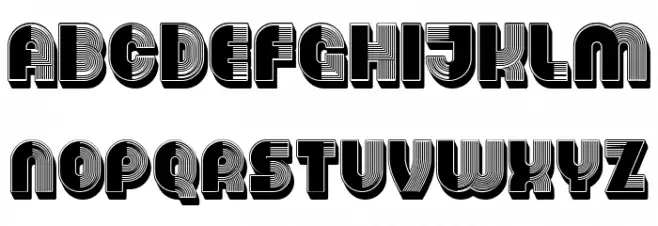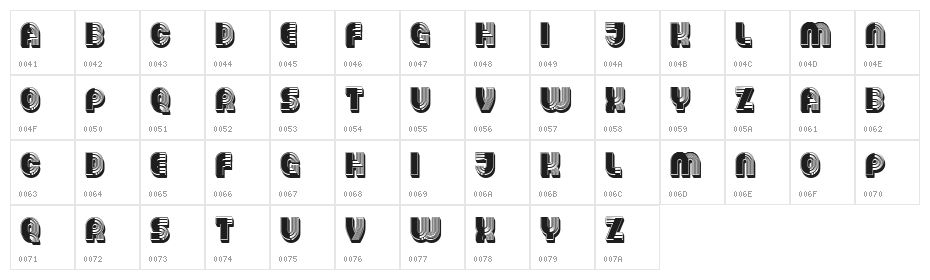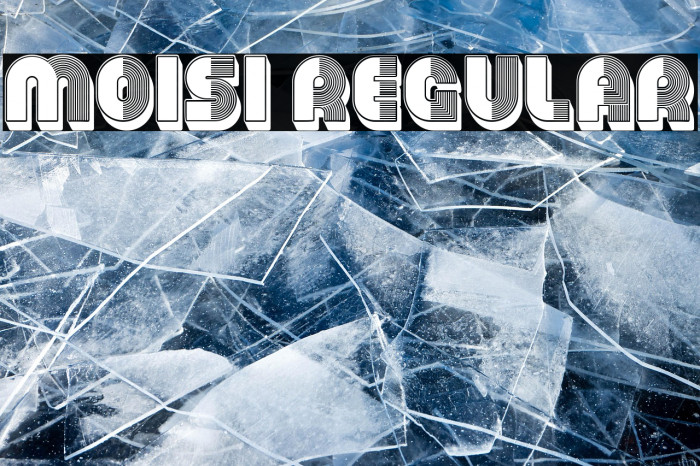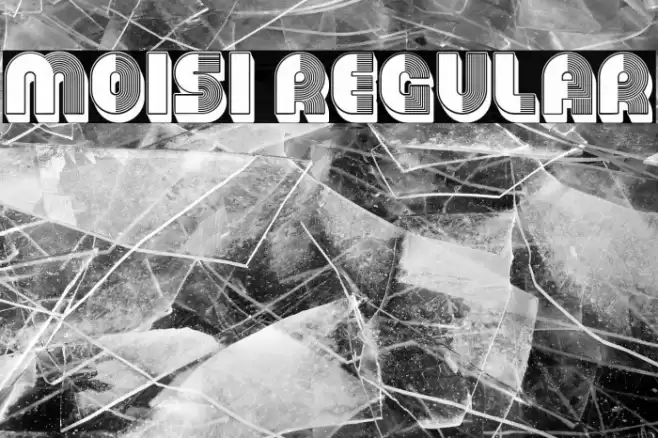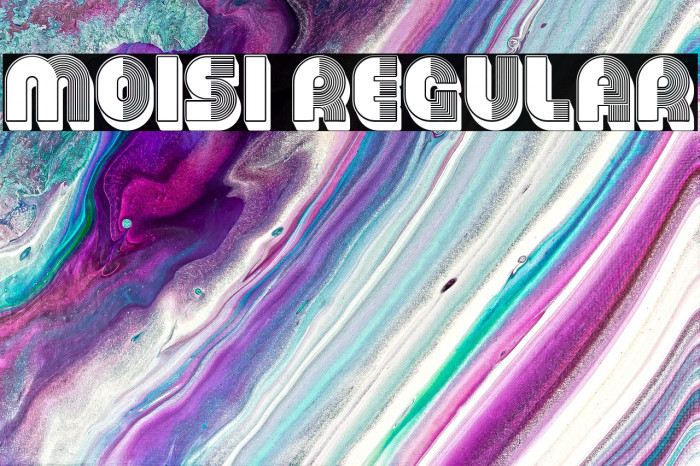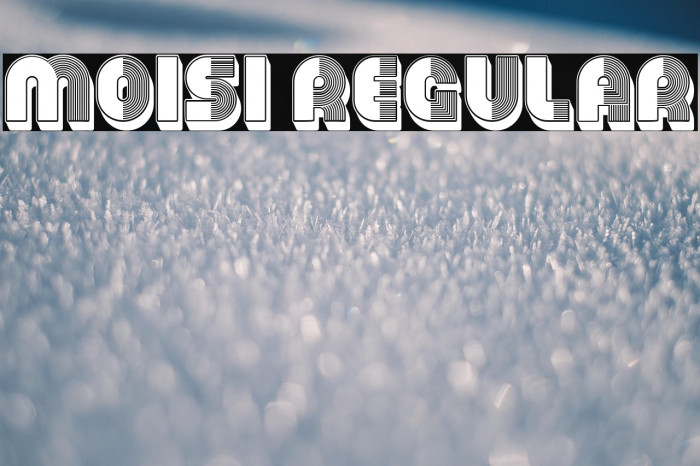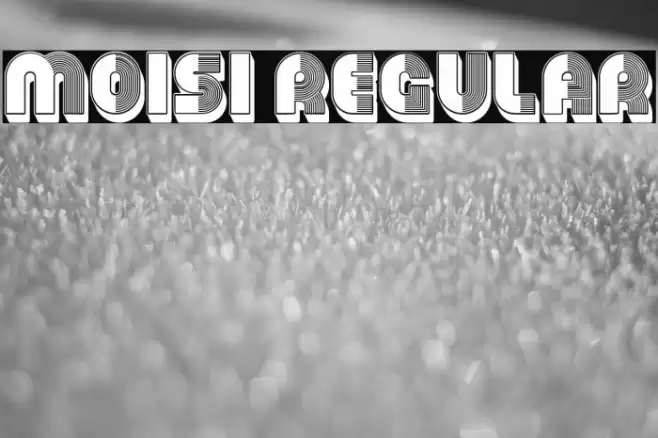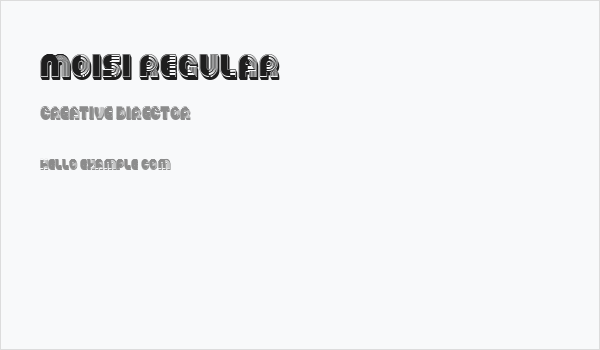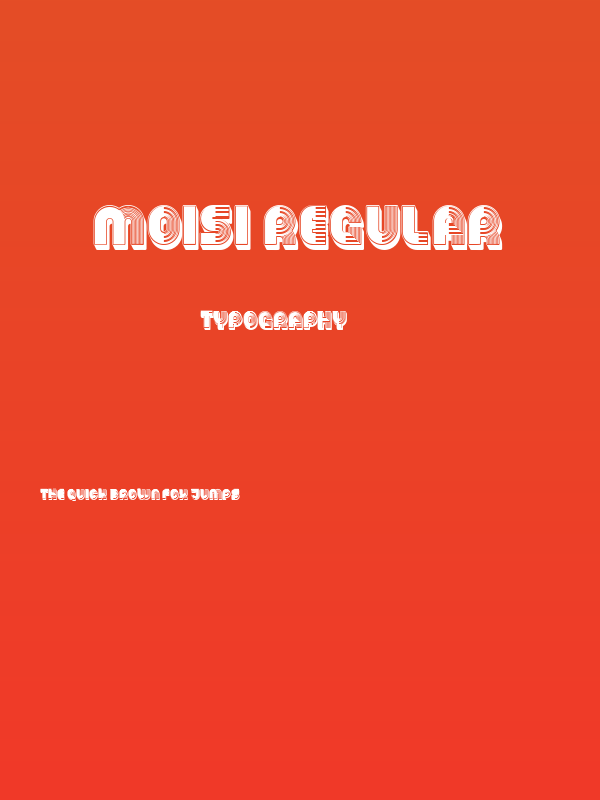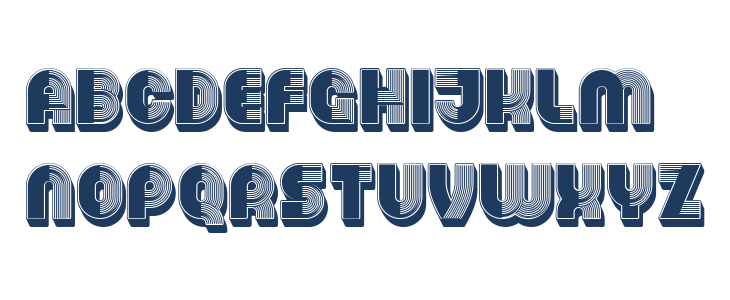
Moisi Regular Font
Moisi Regular Description
This font features a bold, decorative style with a unique layered effect that gives it a three-dimensional appearance. The letters are constructed with multiple parallel lines, creating a sense of depth and movement. The overall design is striking and eye-catching, making it ideal for projects that require a strong visual impact. The uppercase letters are particularly prominent, with a consistent width and height that ensures uniformity across the typeface. The font's playful yet structured aesthetic makes it suitable for a variety of creative applications.
| Proposed Projects | Ideal for posters, logos, headlines, and any design requiring a bold statement. |